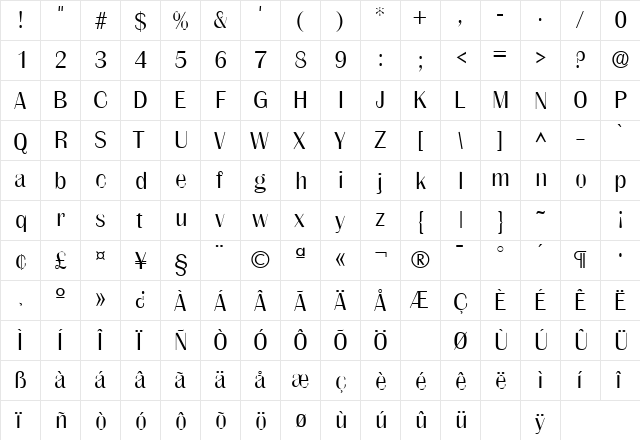
GrenobleLH Regular
Design Context for GrenobleLH Typeface
GrenobleLH takes a measured approach to typography — its balanced proportions and neutral character make it a reliable workhorse for both digital and print work.
Pro Tip: Use GrenobleLH in both headline and body roles to test its range before committing to a single application.